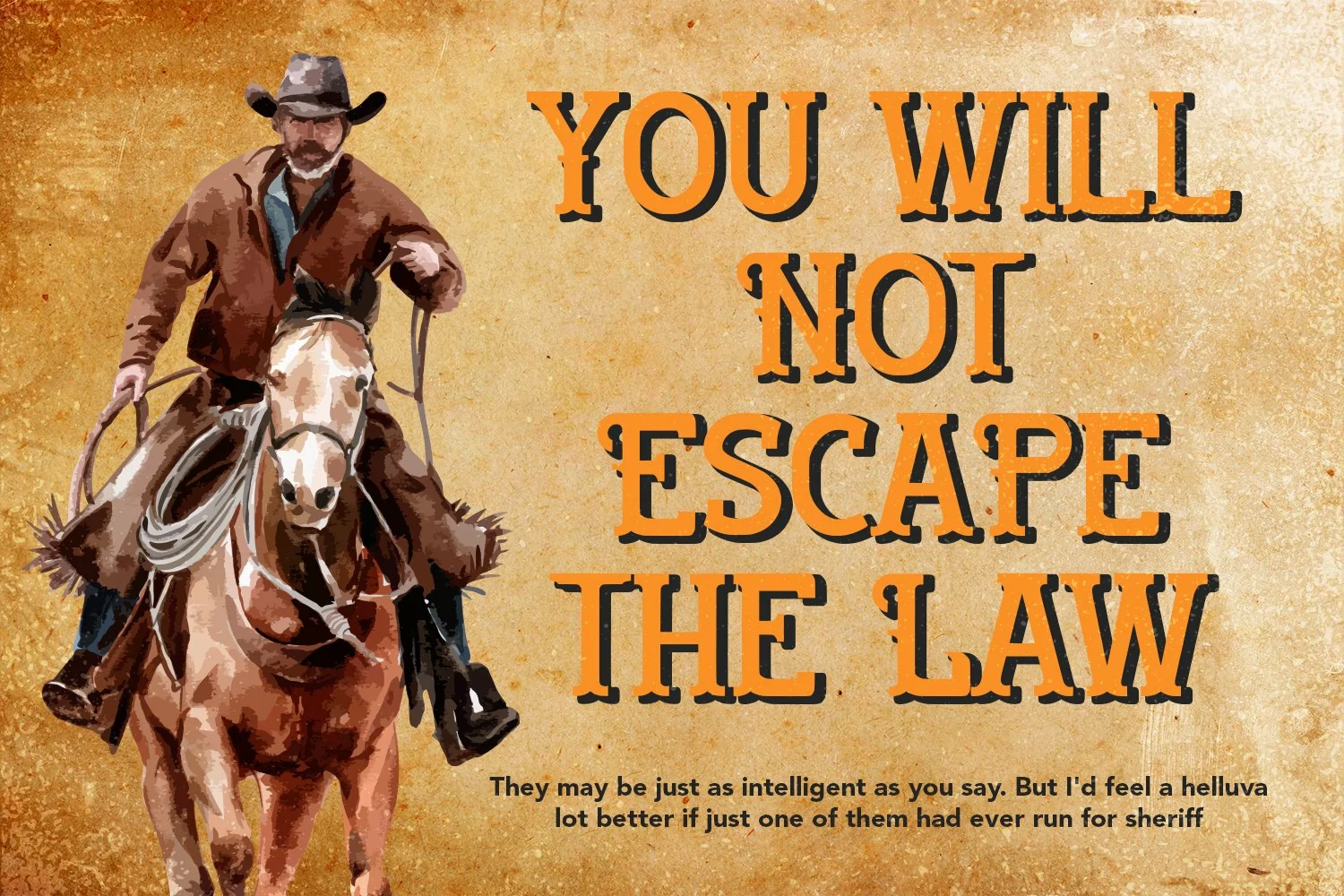
Presenting Howdy Sherrif - Western Display Font for Your Project. A perfect font which can be used for multiple purpose.
2- Super Creative Font.
Howdy Sherrif